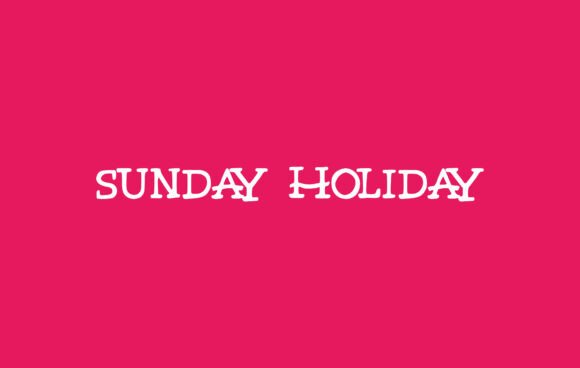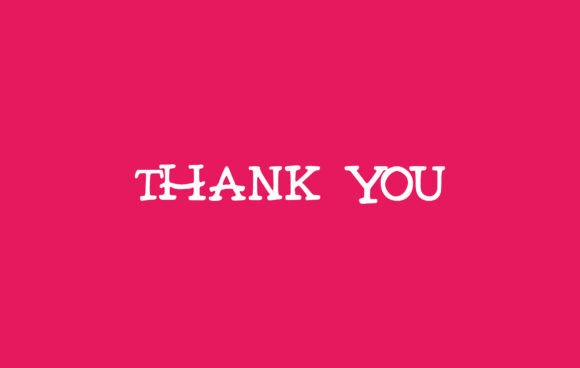
The CyberGlow Font: A Romantic Touch for Your Creative Projects
I’ll never forget the time I was working on a wedding invitation design project, and my client asked for a font that was both elegant and playful. I scoured the internet, trying out font after font, but nothing seemed quite right. That was until I stumbled upon the CyberGlow font. With its romantic touch and authentic handwritten feel, it was love at first sight! In this article, I’ll share my experience with the CyberGlow font, its features, and how to make the most of it in your designs.
A Personal Review of CyberGlow
I’ve had the pleasure of working with the CyberGlow font on several projects, and here’s what I think:
- ✨ Legibility: CyberGlow is incredibly legible, making it perfect for both title and body text.
- ✅ Romantic touch: The font’s handwritten feel adds a touch of warmth and elegance to any design.
- 💕 Versatility: It works beautifully for a wide range of projects, from magazine headlines to social media graphics, branding, wedding invitations, and more.
Of course, no font is perfect, and there are a few quirks to be aware of:
- 🤔 Limited contrast options: While the font comes in a range of weights, it can be a bit tricky to find the perfect contrast between light and heavy weights.
- ⚠️ Glyph limitations: Some users have reported that the font’s glyph library could be more extensive, particularly for non-English characters.
The Story Behind CyberGlow
CyberGlow was designed with the intention of creating a font that was both authentic and romantic. The designer aimed to craft a font that would evoke a sense of warmth and elegance, perfect for a wide range of creative projects. While the exact story behind the font’s creation is unclear, it’s evident that the designer put a great deal of thought into creating a truly unique and versatile font.
| Font Name | Cyberglow Font |
| What is the CyberGlow font best suited for? | The CyberGlow font is perfect for a wide range of design projects, including magazine headlines, social media graphics, branding, wedding invitations, and more. |